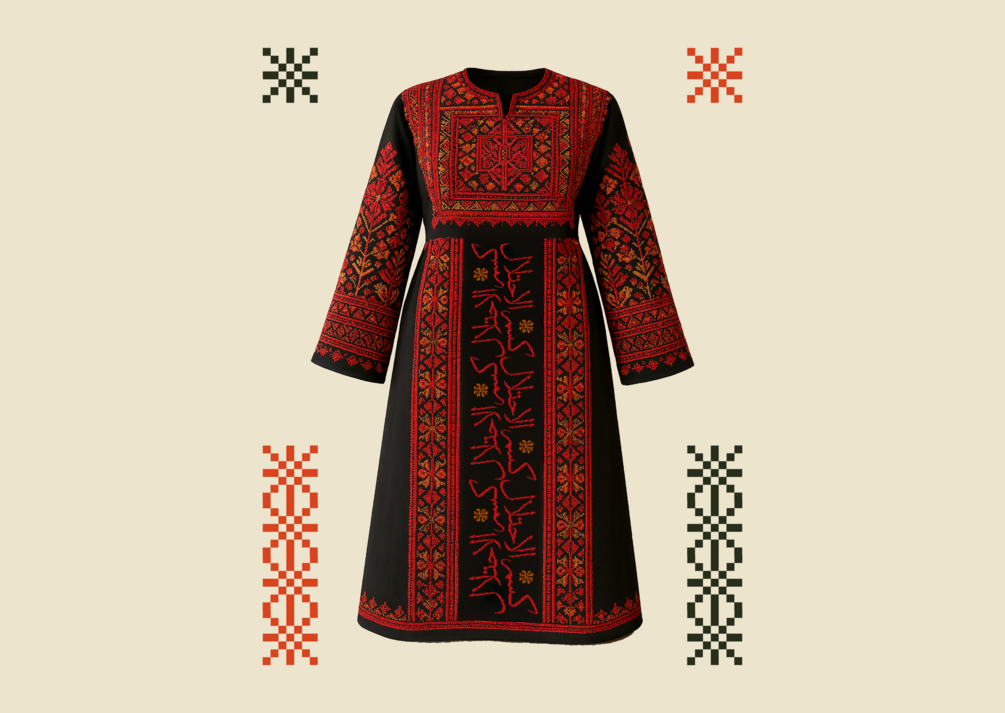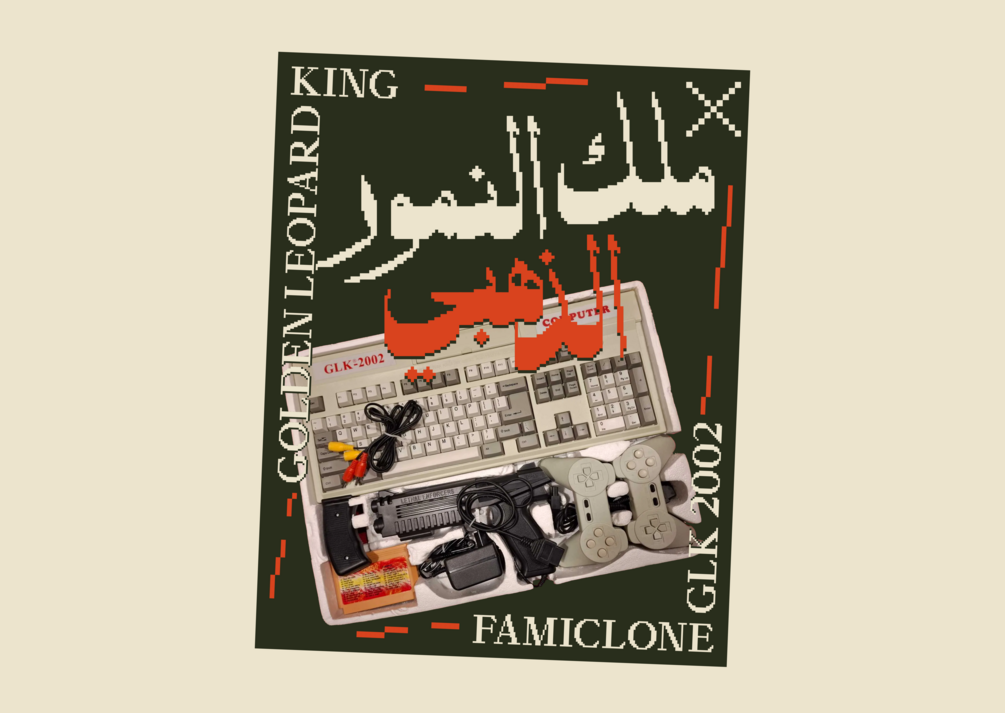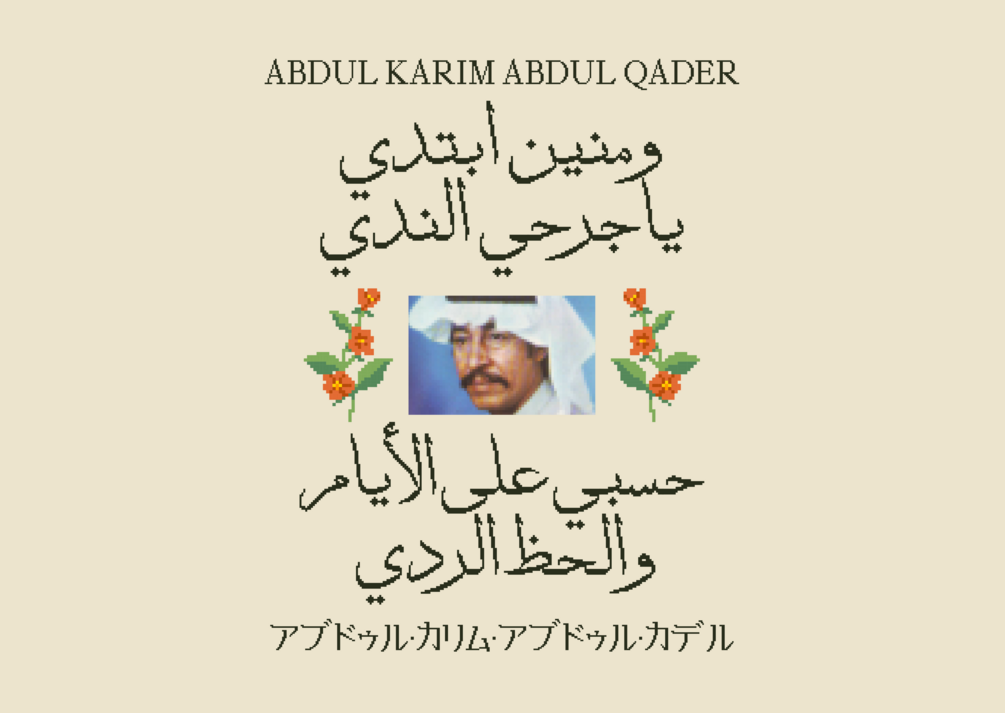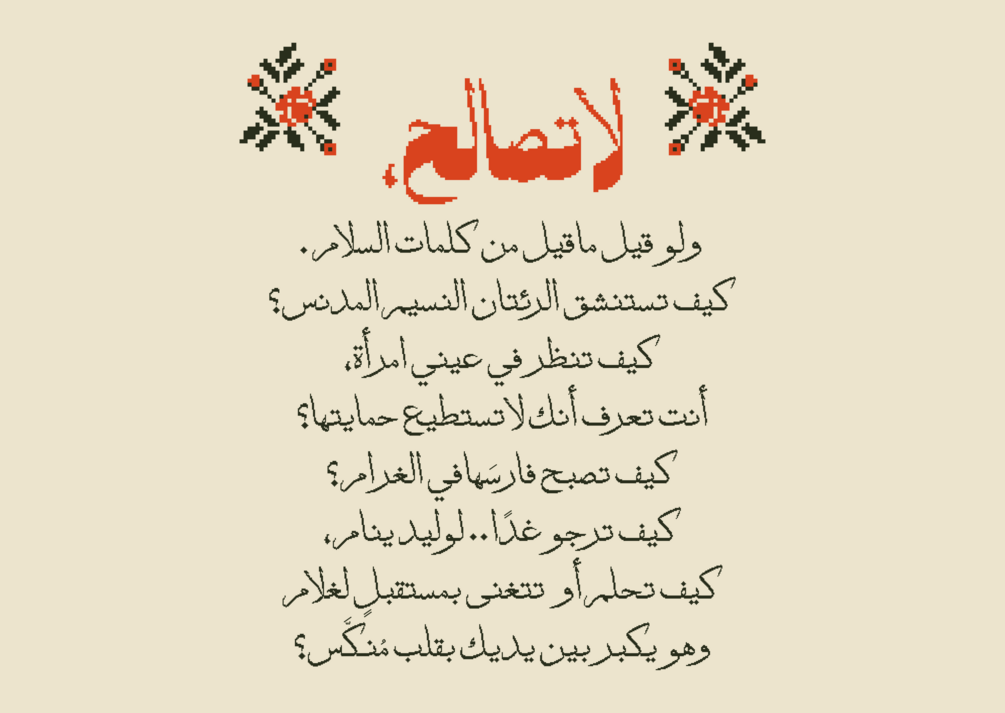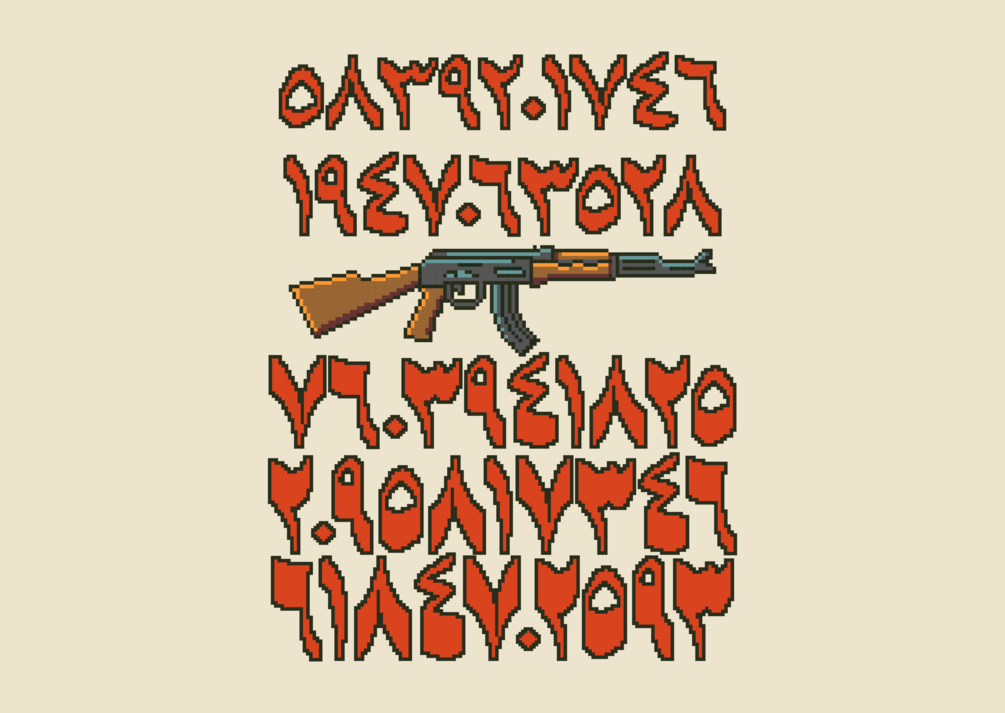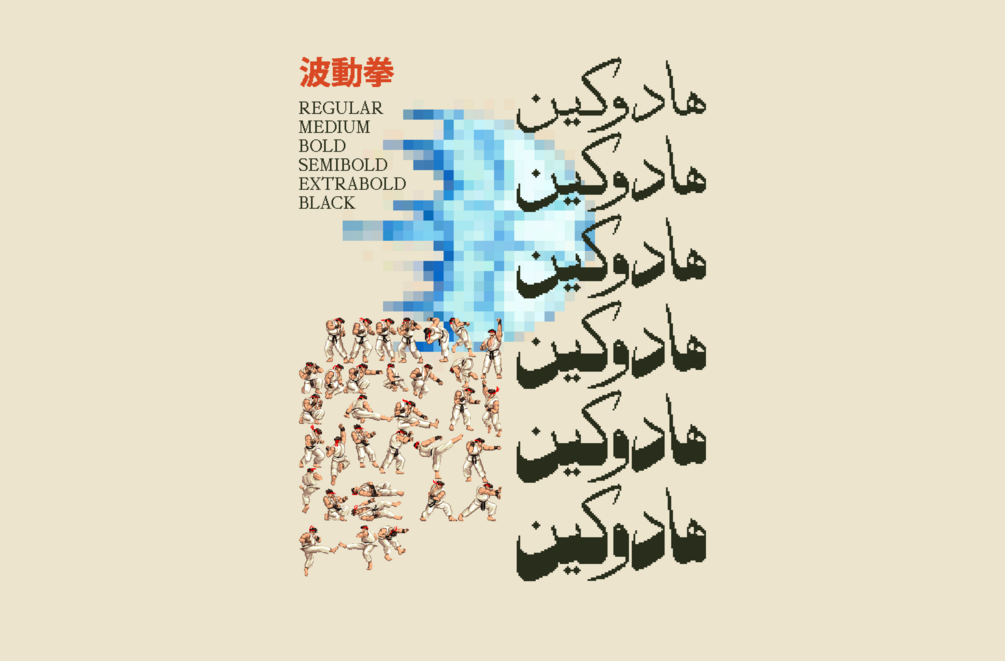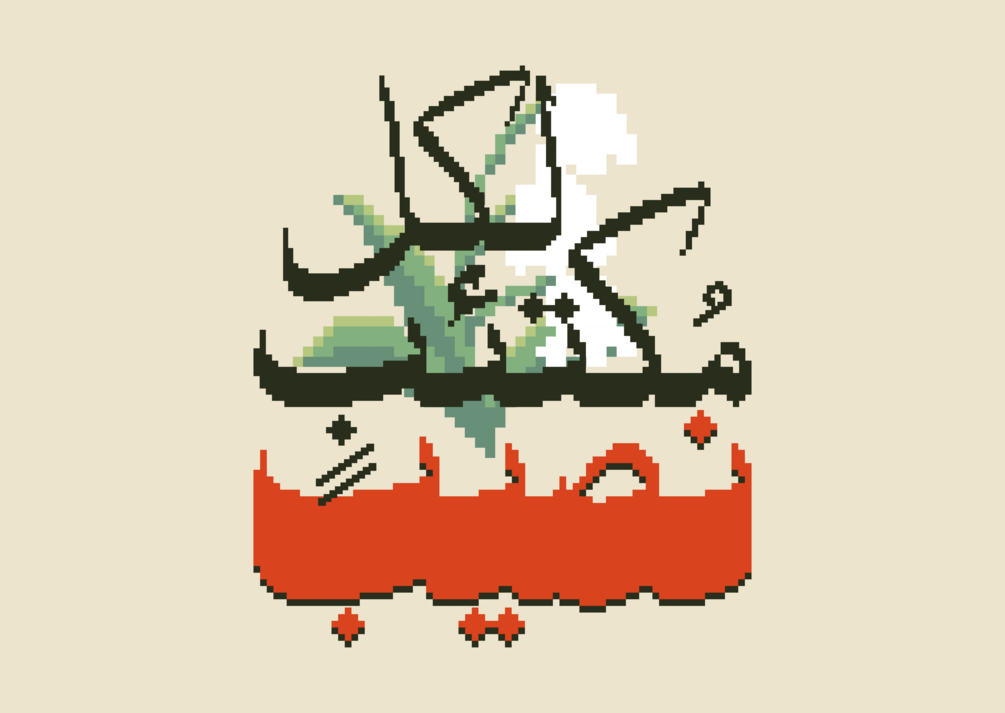
Methlama Typeface
Methlama typeface
Methlama is an Arabic typeface with six weights, inspired by handcrafted aesthetics where digital meets heritage. Its pixel forms echo retro video games and embroidery patterns, while its thuluth calligraphic roots ground it in a timeless Arabic visual tradition.
Arabic typeface
OpenType Features
Required Ligatures.